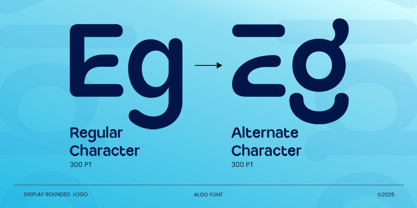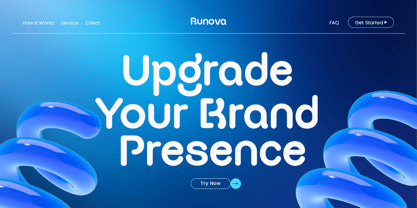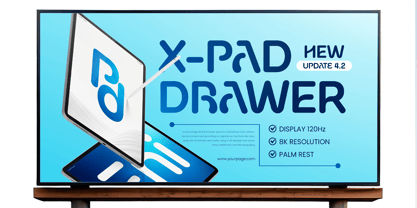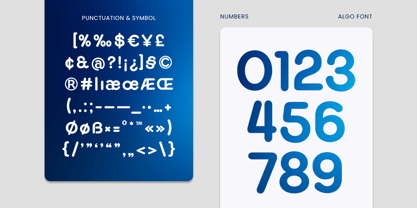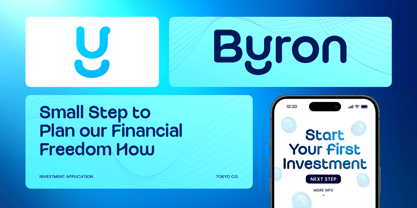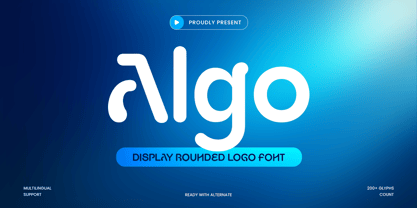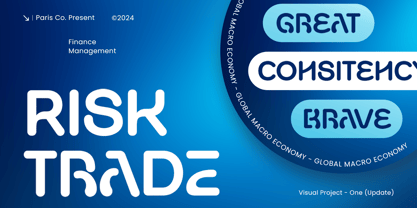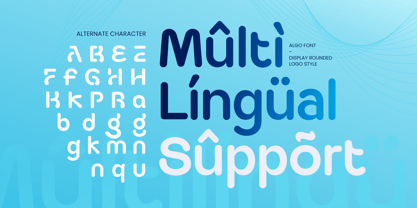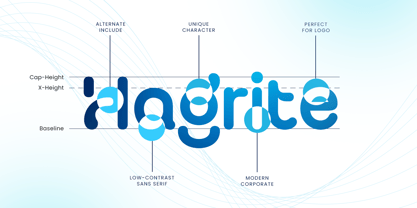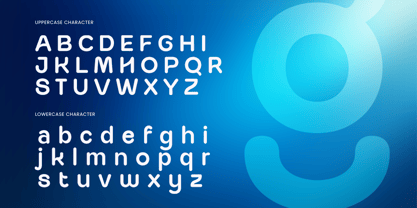
Algo is a display rounded logo font built to deliver bold impact with a soft, approachable personality. Its smooth rounded shapes and modern structure create a friendly visual tone that feels clean, contemporary, and instantly recognizable.
Designed for logo-driven branding and standout display typography, Algo works beautifully across wordmarks, packaging, posters, signage, website headers, presentations, and social media graphics. The rounded construction keeps the mood warm and inviting, while the display proportions ensure strong visibility in high-impact layouts.
Whether you’re building a modern startup identity, a playful product brand, or a friendly digital campaign, Algo provides a rounded typographic voice that feels bold, clear, and easy to love across print and digital projects.
Inspiration Behind Algo
Algo is inspired by modern rounded branding trends and clean geometric display typography—where friendliness and clarity create trust. Built to support logo systems and bold headlines, it’s designed for brands that want a modern look with soft edges and approachable energy.
Algo Font Features
• Rounded display letterforms with modern logo-ready character
• Optimized for branding, wordmarks, and headline typography
• Strong readability with bold, friendly proportions
• Uppercase, lowercase, numerals, and punctuation included
• OpenType features for polished, flexible typesetting
Perfect For
• Friendly logos and modern brand identity systems
• Packaging, labels, and product presentation design
• Posters, signage, and bold promotional headlines
• Website headers, presentations, and social media visuals
• Playful campaigns and approachable digital branding
Multilingual Support
Make your branding feel bold and welcoming with Algo—crafted for rounded display logos with modern friendly impact. 😊✨